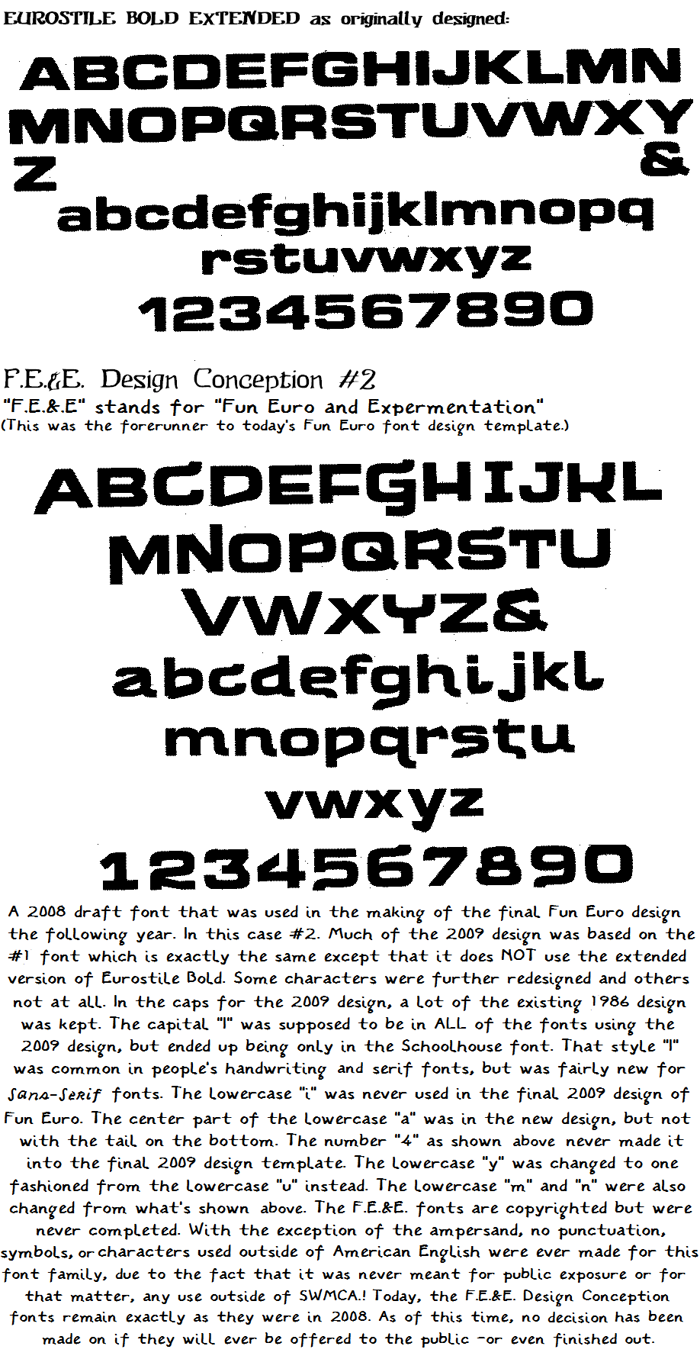
Russelfeiring Blast Psyched Out Font
Psyched Out Style
After 30 years, the Fun Euro name was retired. The first Fun Euro font was drawn in 1986. Don't worry, this and other fonts will still be offered, and for free. Just under a different name, -and that name just happens to be none other than Russelfeiring Blast.
The name is in the less serious spirit of most of the Fun Euro fonts. Russelfeiring is a season from May first through seventeenth where people (mostly college age) celebrate much how Mardi Gras in New Orleans was celebrated prior to Hurricane Katrina. This holiday is Norweigan in origin. While Norway is not a part of the European Union, the nation is still in Europe -as in the continent. That's what makes the new name still "of Europe".